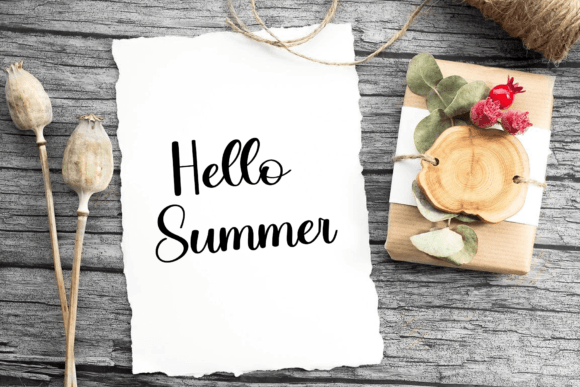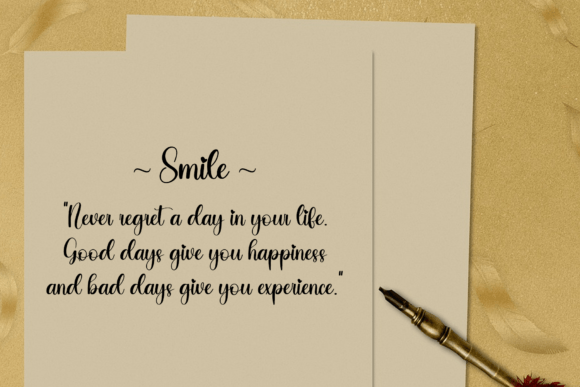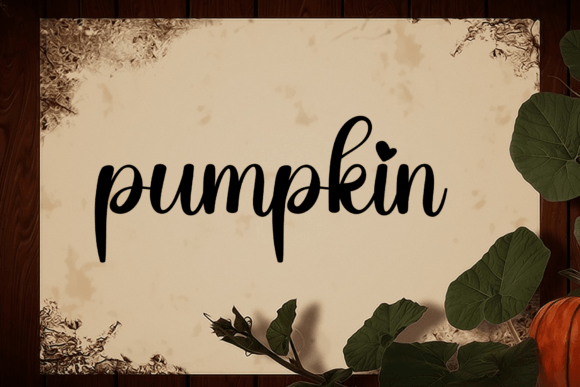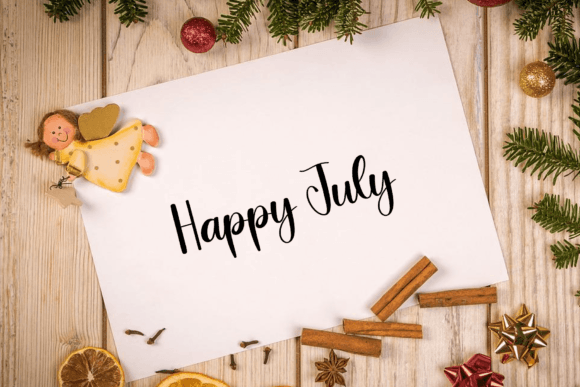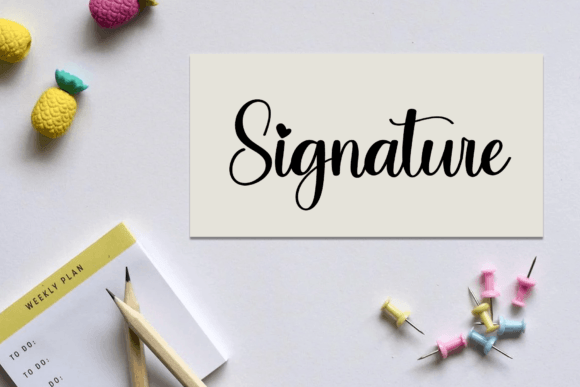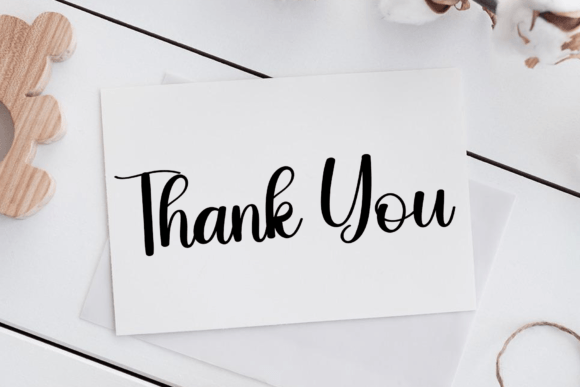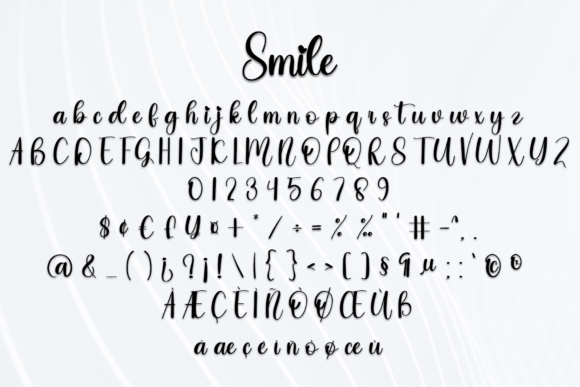
Smile Font
About Smile Font
“Smile” is a unique and carefully crafted round-lettered handwritten font designed to enhance your favorite projects. With its distinctive style, this font can be effectively used to write titles, invitations, letters, and a variety of other types of products.
The round-lettered design of “Smile” adds a special touch to your text, bringing a sense of friendliness and charm. Each letter has been meticulously shaped to create a cohesive and visually appealing appearance, making it an ideal choice for titles that seek to convey a positive and inviting vibe. Imagine using “Smile” on invitations where its round letters contribute to a playful and warm atmosphere.
The versatility of “Smile” allows it to adapt seamlessly to different design contexts, making it a valuable asset for various creative projects. Its carefully crafted handwritten style brings a sense of authenticity and uniqueness to your designs, making them visually engaging and memorable.
As you incorporate “Smile” into your design projects, let its unique, round-lettered style be the key element that enhances your work. Whether you’re working on titles, invitations, or any other type of product, “Smile” invites you to infuse your designs with its carefully crafted handwritten charm, ensuring that your creations exude positivity and charm.